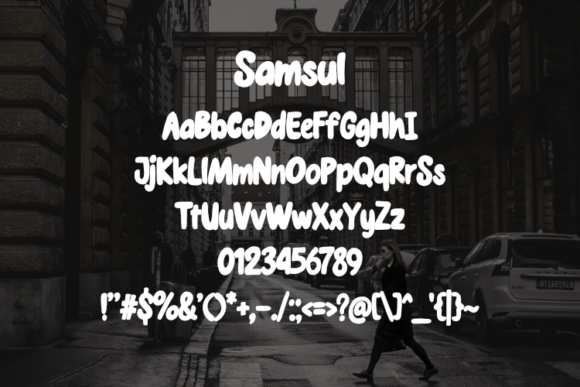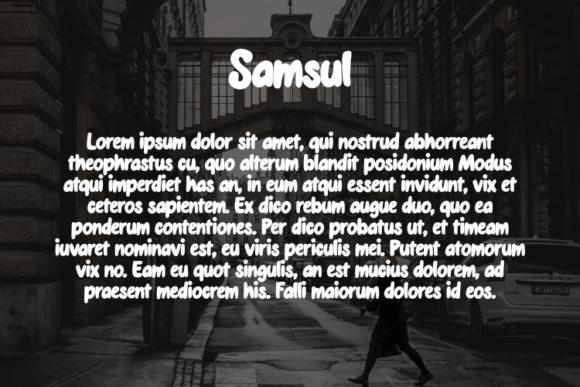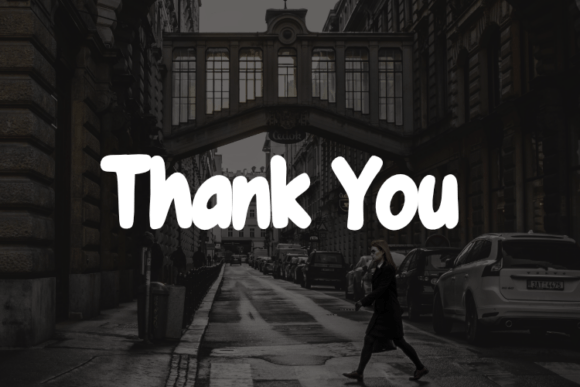
Unlocking Creativity with the Samsul Font
Have you ever stared at a blank canvas, trying to bring your creative vision to life? The excitement of starting a new project can be both thrilling and intimidating. But what if you had the perfect tool to help you unlock your full potential? For designers, the right font can be the difference between a mediocre design and a masterpiece. That’s where the Samsul Font comes in – a high-quality typeface that’s waiting to elevate your creative project to new heights.
Key Features of Samsul Font
- High-quality design suitable for creative projects, including graphics, logos, and branding materials.
- Features a unique and modern design style, making it an excellent choice for innovative and forward-thinking projects.
Honest Review: Samsul Font
As a designer, I’m always on the lookout for high-quality design resources to elevate my creative projects. Recently, I stumbled upon the Samsul Font, and I’m excited to share my honest review.
- ✨ Sleek and modern design aesthetic, perfect for contemporary projects
- ✨ Wide range of font styles and weights to suit various design needs
- ✨ High-quality graphics, ensuring crisp and clear text rendering
- ⚠️ Limited font sizes available, which might not be ideal for larger or smaller text requirements
- ⚠️ Some users may find the font styles a bit too uniform, lacking in unique character
Overall, I’m impressed with the Samsul Font’s potential to enhance my design projects. While it may have some limitations, its high quality, free availability, and versatile design make it a valuable resource in my design toolkit.
Samsul Font is commonly used for:
- Brochure design
- Poster design
- Presentation design
To get the most out of Samsul Font, try using it in combination with other design elements, such as images and graphics. You can also experiment with different font sizes and styles to create a unique look.